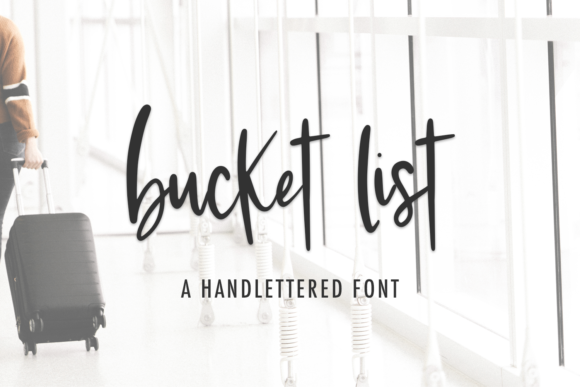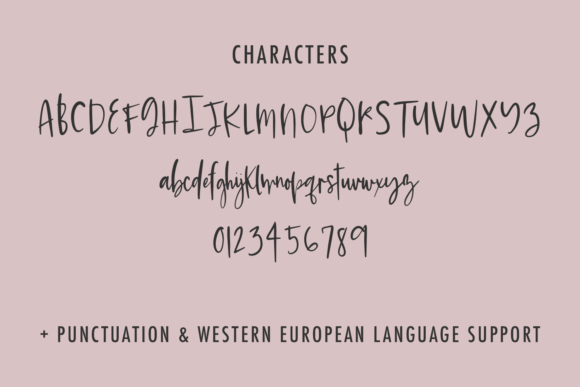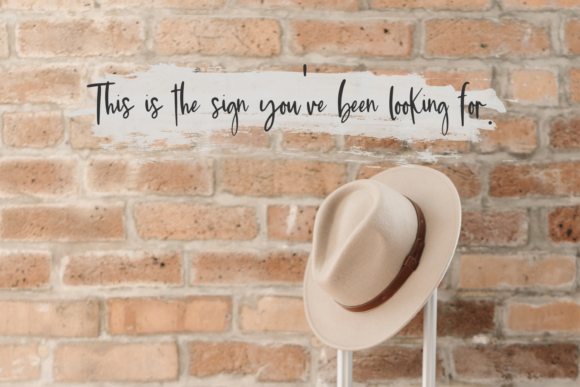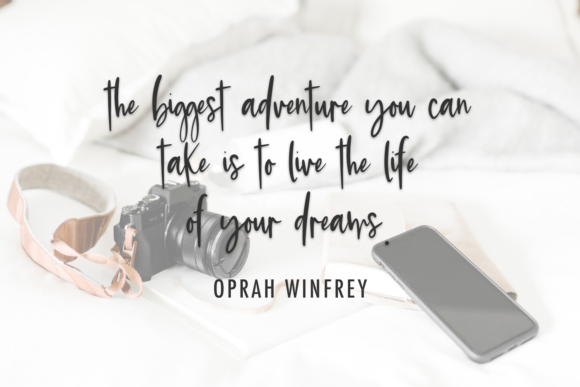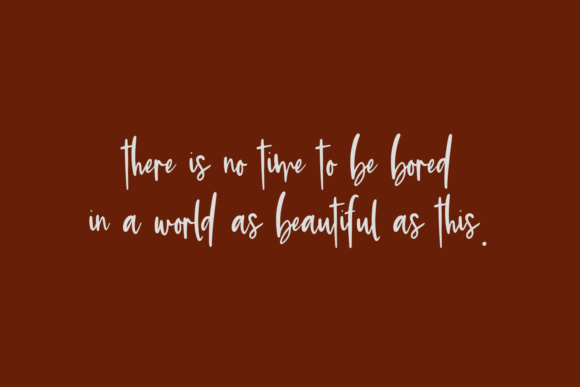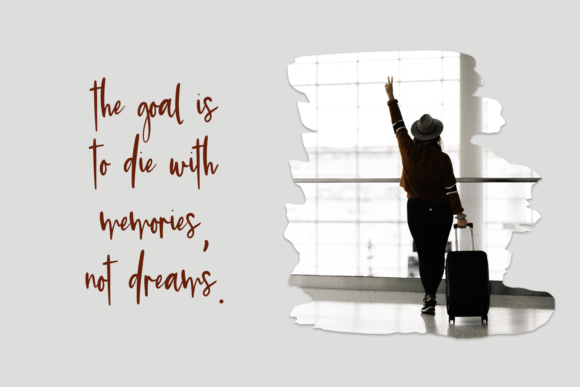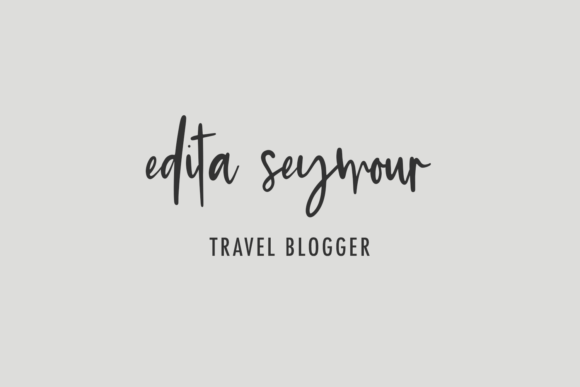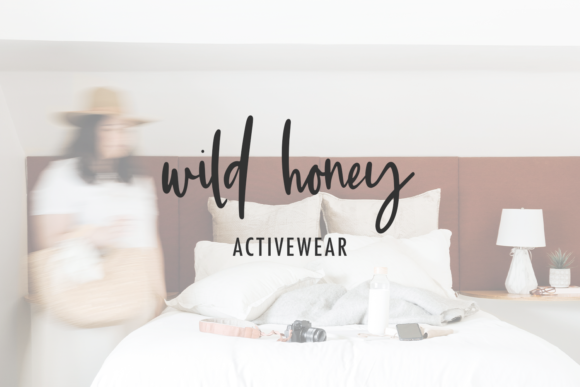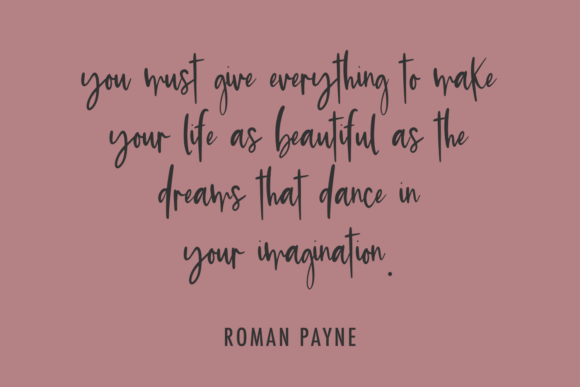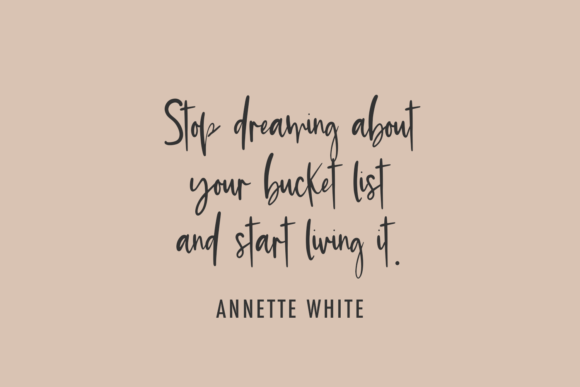
Bucket List Font
About Bucket List Font
Bucket List is a casual script font. Its flexibility and neat style will brighten up each of your designs. Have fun with this cool font and explore its endless variations.